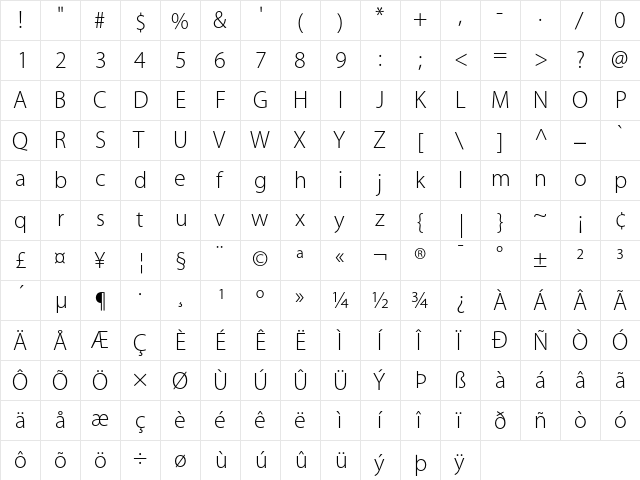
Adobe Corporate ID Myriad Light Font Preview
Adobe Corporate ID Myriad Light
Design Context for Adobe Corporate ID Typeface
Adobe Corporate ID is a composed and adaptable typeface that performs quietly and consistently across a wide range of design contexts. Its slender proportions lend an understated elegance to any composition.